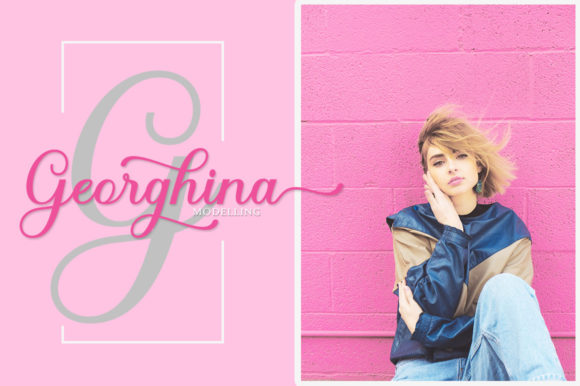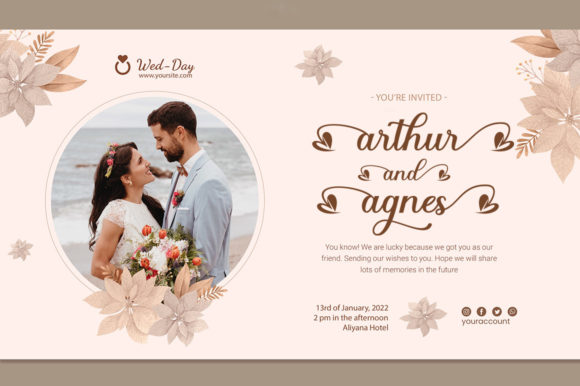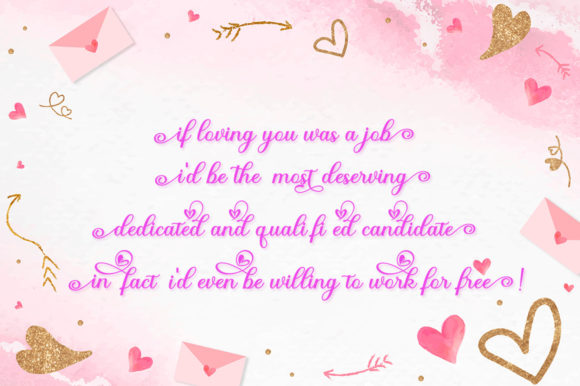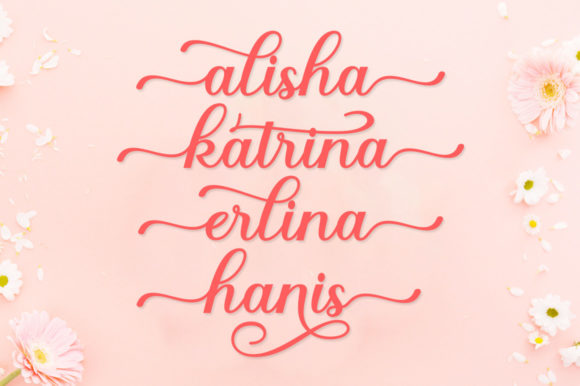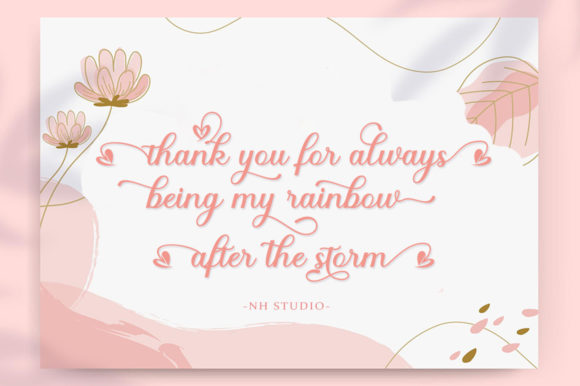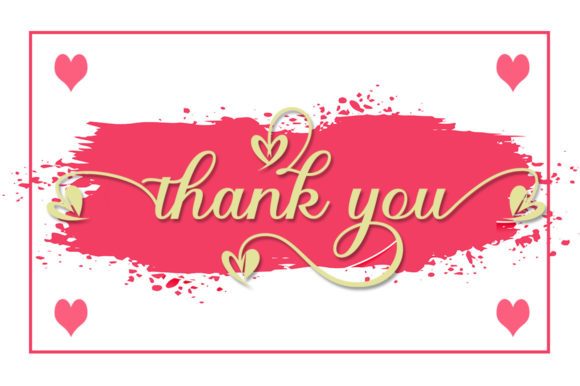
Introduction to Hey Kayla Font
Have you ever stared at a blank canvas, searching for the perfect words to bring your creative project to life? For designers, this moment is all too familiar – the thrill of starting a new project, combined with the pressure to make it stand out. It’s in these moments that we turn to our trusty design resources, seeking inspiration and the perfect tools to help us shine.
Enter the Hey Kayla Font, a stunning modern script font that’s poised to revolutionize the way we design. With its trendy, feminine aesthetic and irregular baseline, this font is perfect for adding a touch of elegance to your next project. Whether you’re crafting a wedding invitation, a heartfelt thank you card, or a logo that screams sophistication, the Hey Kayla Font is the perfect companion.
Key Features of Hey Kayla Font
• Perfect for use in graphic design, digital art, and other creative projects where a unique, high-quality font is desired.
Honest Review: Hey Kayla Font
Here are some of the things that work well with the Hey Kayla Font:
• ✨ High-quality typography: The font is crisp, clean, and easy to read, making it perfect for body text or headlines.
• ✨ Versatility: The font comes in a variety of styles, from casual to formal, allowing you to mix and match to suit your design needs.
• ⚠️ Limited font weights: While the font has a good range of styles, I found the font weights to be a bit limited, which can make it difficult to achieve the perfect balance in some designs.
• ⚠️ Not ideal for complex designs: The font’s simplicity can sometimes make it difficult to use in complex designs that require a lot of custom typography.
Overall, I’m impressed with the Hey Kayla Font and would definitely recommend it as a design resource. It’s perfect for simple, high-quality designs where a clean and elegant typography is needed.
Hey Kayla Font
Tips for Getting the Most Out of Hey Kayla Font
To get the most out of Hey Kayla Font, use it in combination with other design elements to create a unique and visually appealing design. Experiment with different font sizes, colors, and styles to achieve the desired look.
Common Use Cases for Hey Kayla Font
Hey Kayla Font is perfect for creative projects such as wedding invitations, birthday party decorations, and social media graphics. Its elegant and unique style makes it ideal for designs that require a touch of sophistication.